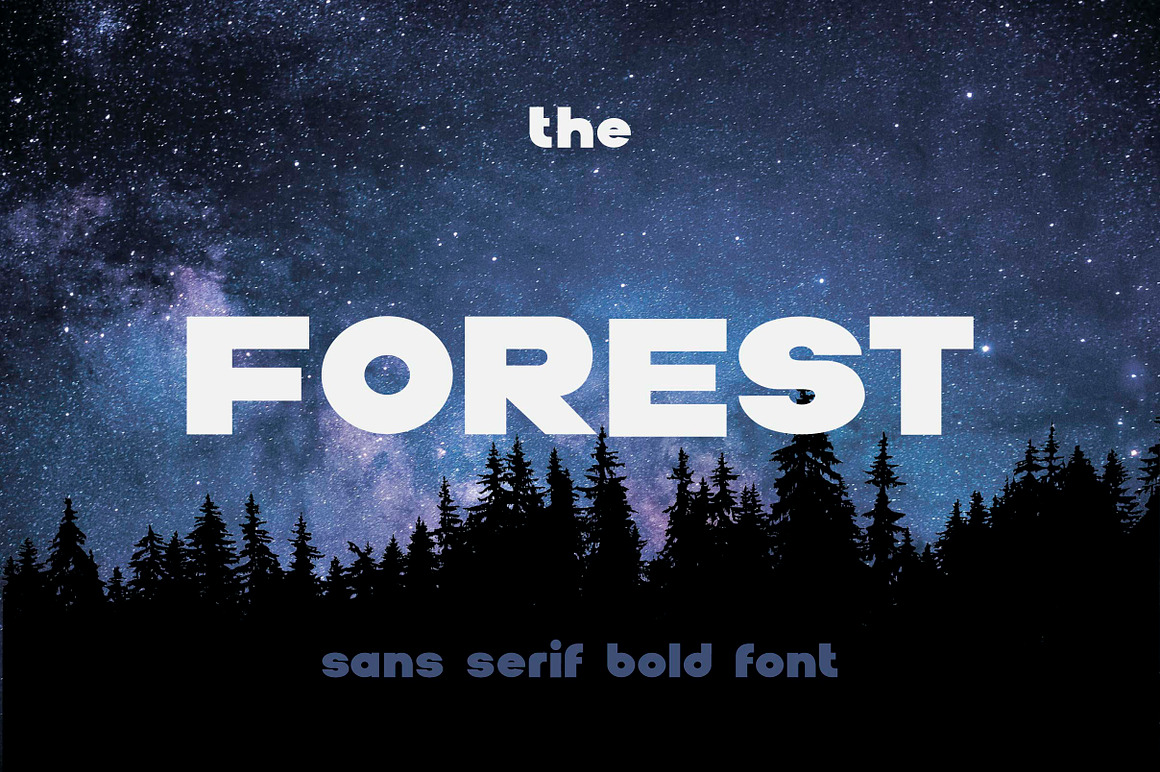
The Forest. Sans serif bold otf font
The Forest. Sans serif bold otf font is perfect for outdoor adventure branding, environmental conservation campaigns, nature-inspired product packaging, eco-friendly business identities, wilderness tourism marketing, sustainable lifestyle communications, national park signage, and organic advertising materials. This powerful typeface works exceptionally well in both digital applications and print media where natural strength and environmental consciousness are fundamental design requirements.
What makes The Forest. Sans serif bold otf font so exciting is its commanding interpretation of forest majesty and natural power through bold letterforms that seem rooted in the ancient strength of towering trees and pristine wilderness. The font features robust characters with organic proportions, natural curves, and earthy details that evoke the timeless grandeur of untouched forests and the vital importance of environmental preservation. Its powerful personality and natural heritage make it ideal for brands seeking to communicate environmental responsibility, outdoor adventure, and the profound connection between humanity and nature while maintaining excellent readability across diverse applications.
The Forest. Sans serif bold otf font family includes comprehensive weight variations with different natural intensities, along with organic alternates and environmental ornamental elements. Each style maintains the typeface's forest character while offering extensive character sets including natural numerals, eco-inspired punctuation marks, and special symbols designed to enhance environmental communications and sustainable branding efforts across various outdoor contexts.
This extraordinary typeface represents the perfect fusion of natural inspiration and contemporary bold typography for environmental and outdoor industries. Whether you're developing conservation organization identities, creating outdoor gear marketing materials, or designing sustainable product campaigns, The Forest. Sans serif bold otf font Free Download delivers the natural strength and versatility needed to connect with environmentally conscious audiences. The font's forest heritage makes it particularly effective for outdoor equipment brands, environmental organizations, eco-tourism companies, and businesses celebrating the beauty and importance of natural wilderness preservation.
The meticulously crafted natural construction and optimized environmental performance in The Forest. Sans serif bold otf font ensure maximum organic impact while maintaining clear communication across all outdoor applications. Its commanding natural presence makes it ideal for environmental branding, outdoor marketing campaigns, and conservation communications where its full forest character can create powerful connections with audiences who cherish and protect our natural world.